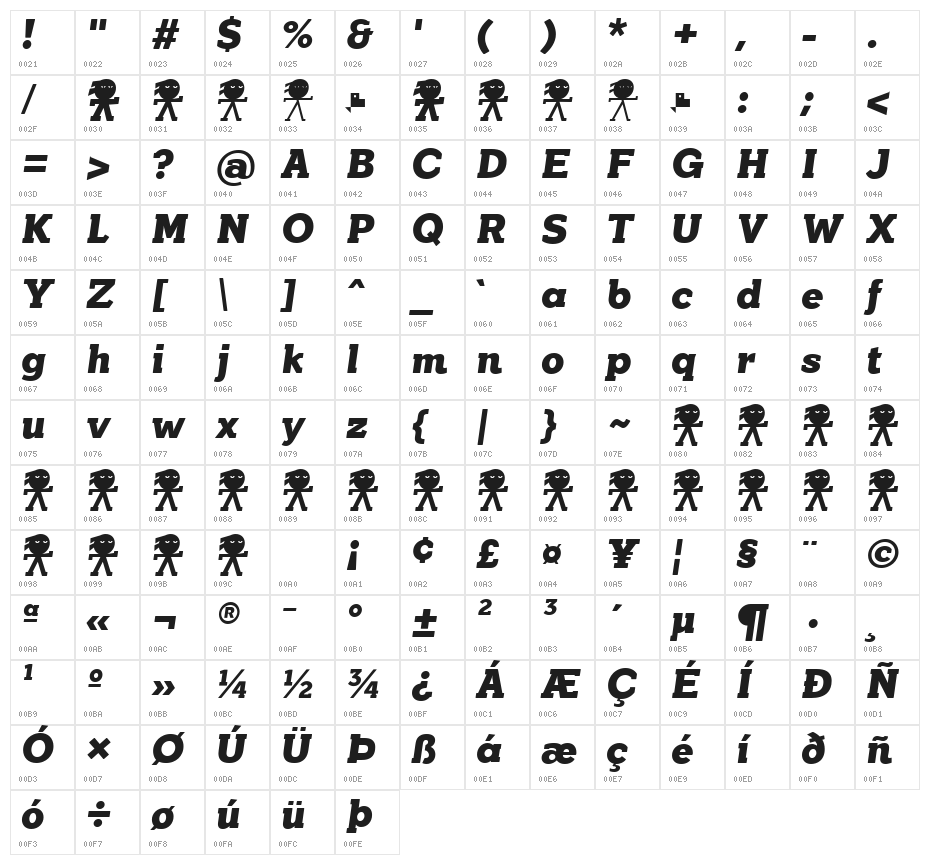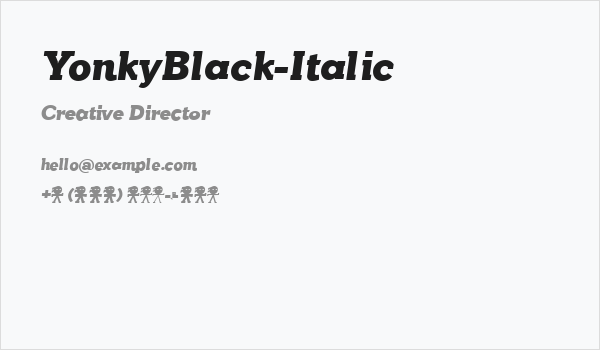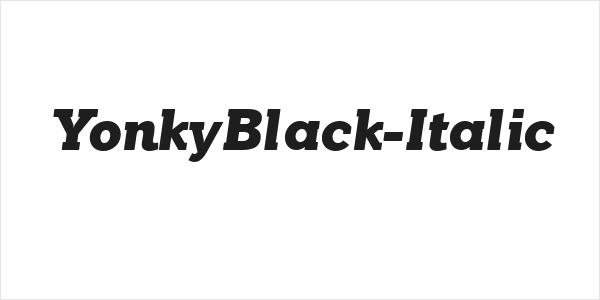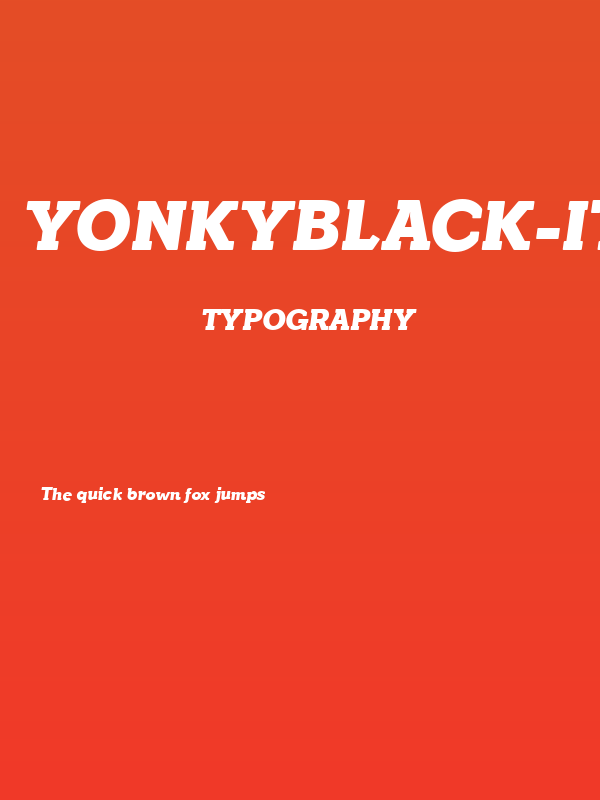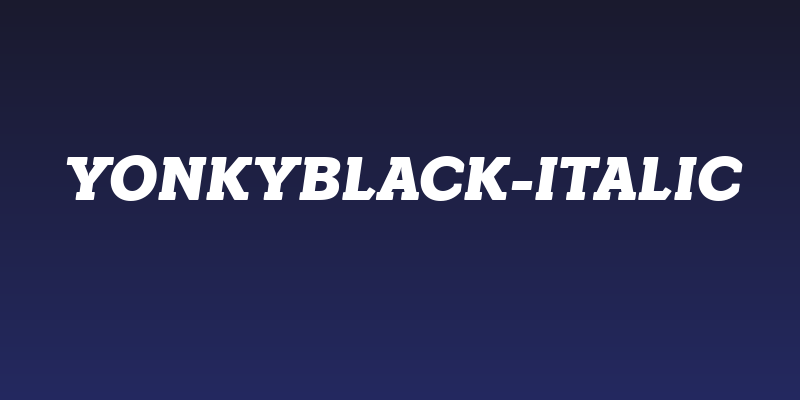
YonkyBlack-Italic Font
YonkyBlack-Italic Description
This font features a bold and dynamic style with a strong italic slant, giving it a sense of motion and energy. The uppercase and lowercase letters are robust and impactful, making them suitable for attention-grabbing headlines. The characters are well-defined with a consistent stroke weight, contributing to its bold appearance. The special characters and numbers maintain the same boldness, ensuring uniformity across all glyphs. The font's design is modern and assertive, ideal for projects that require a strong visual presence.
Proposed ProjectsIdeal for headlines, posters, branding, and advertising materials that need a bold and energetic look.